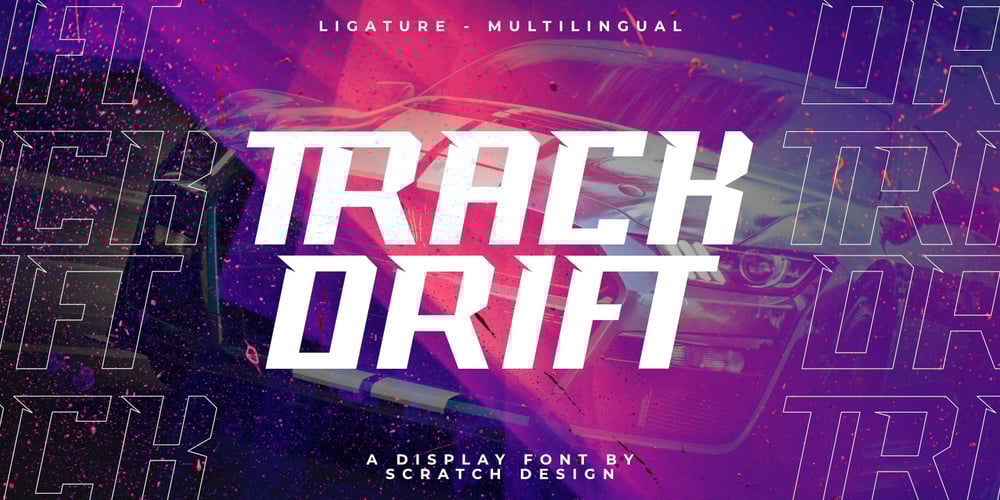
Track drift Font Family was designed by Gitayogi Irhandi and published by Scratch Design. Track drift contains 1 styles and family package options. Track Drift is a strong font with a race theme. This font has speed, strong, sharp, fast, powerful, and modern characters. Track Drift will be suitable for racing or game themes of design, such as logos, headlines, posters, sports or race events, automotive posters, magazines, product design, packaging, labels, and other creative projects that need speed and strong font.What you’ll get : All caps font in two styles Numbers & punctuation Multilingual support Ligatures Thank you for your purchase!Hope you enjoy our font!